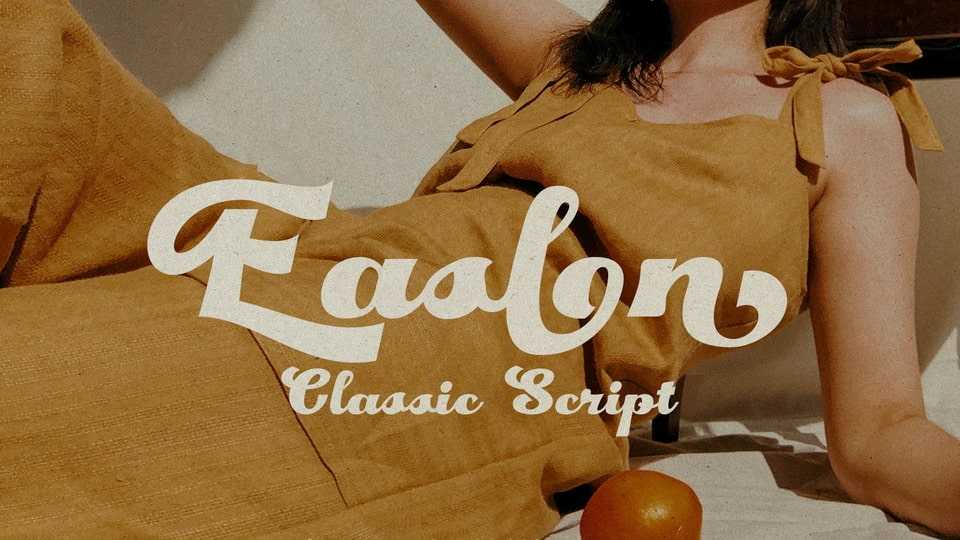
Download Easlon font, a retro script typeface that comes with a 70’s retro style. You can explore and combine creating a rhythm for comfortable reading.
Designer: TypeClassHeroes